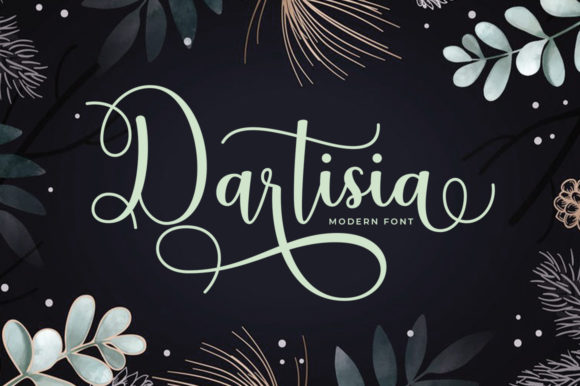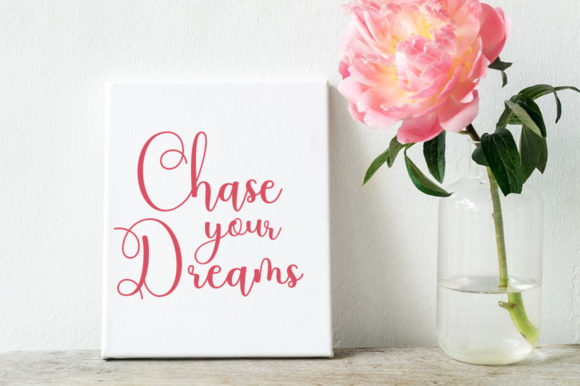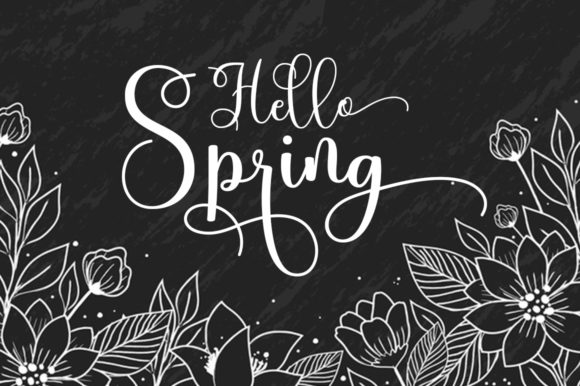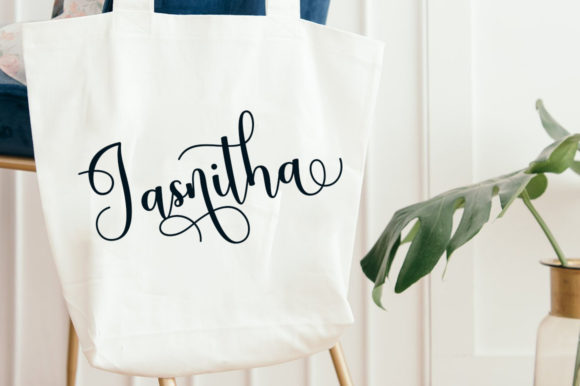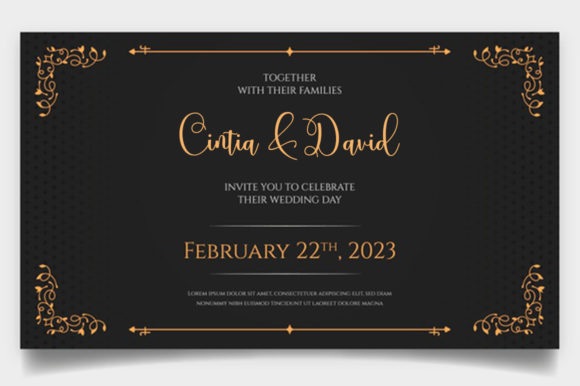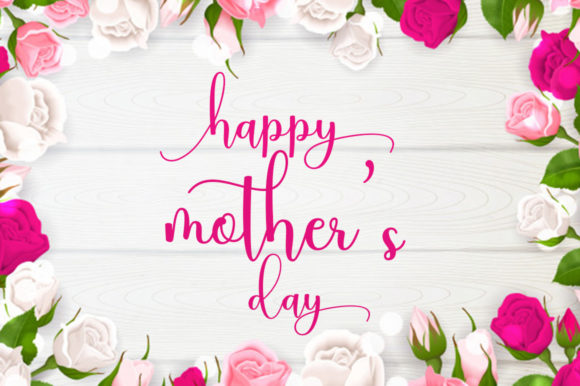
Dartisia Font
About Dartisia Font
Dartisia is a sweet and soft handwritten font. The playful round character makes it the perfect font to create amazing art. Fall in love with its authentic feel and use it to create gorgeous wedding invitations, beautiful stationary art, eye-catching social media posts, and cute greeting cards.